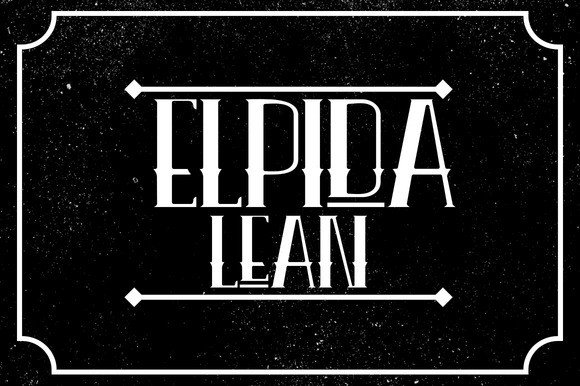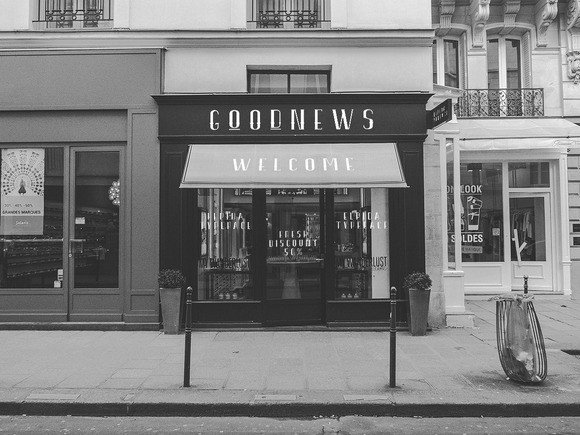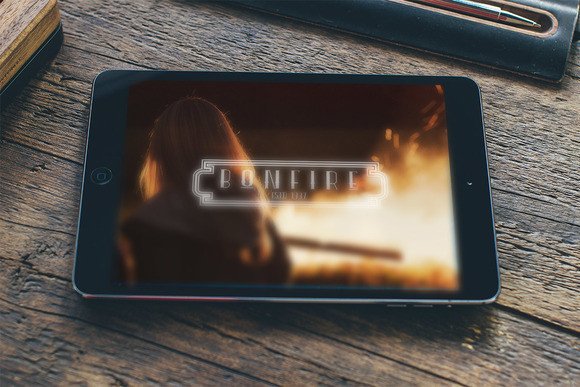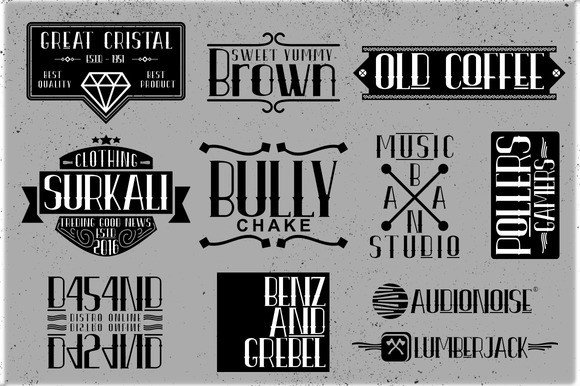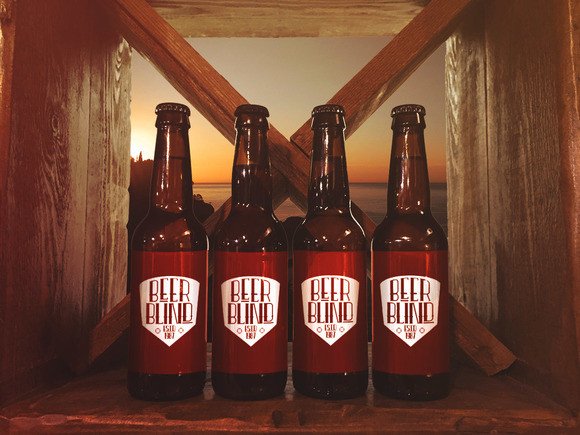
Introducing Elpida Font: A Beautifully Restrained Display Font
Are you a designer or crafter looking for a unique and stylish font to elevate your visual projects? Look no further than Elpida Font, a stunning display font that is sure to capture attention. In this article, we’ll dive into the features and benefits of Elpida Font, and explore how it can be used to enhance your designs.
What is Elpida Font?
Elpida Font is a beautifully restrained display font that is perfect for headlines and logotype. This condensed display font features a unique negative space appeal that sets it apart from other fonts. With its sleek and modern design, Elpida Font is ideal for designers and crafters who want to add a touch of sophistication to their work.
Key Features of Elpida Font
- Condensed design: Elpida Font is a condensed display font, making it perfect for headlines and logotype where space is limited.
- Negative space appeal: The font’s unique negative space design adds a touch of elegance and sophistication to any project.
- Beautifully restrained: Elpida Font is designed to be beautifully restrained, making it perfect for designers who want to add a touch of subtlety to their work.
- High versatility: Elpida Font can be used for a wide range of projects, from branding and advertising to packaging and digital design.
Benefits of Using Elpida Font
So why choose Elpida Font for your next project? Here are just a few benefits of using this stunning display font:
- Adds visual interest: Elpida Font’s unique negative space design adds visual interest to any project, making it perfect for designers who want to capture attention.
- Enhances brand identity: With its sleek and modern design, Elpida Font can help enhance brand identity and create a lasting impression.
- Easy to read: Despite its condensed design, Elpida Font is easy to read, making it perfect for headlines and logotype.
- Highly versatile: Elpida Font can be used for a wide range of projects, from digital design to print materials.
How to Use Elpida Font in Your Designs
So how can you use Elpida Font in your designs? Here are a few ideas to get you started:
- Headlines and titles: Use Elpida Font to create eye-catching headlines and titles that capture attention.
- Logotype and branding: Elpida Font is perfect for logotype and branding projects, adding a touch of sophistication and elegance to any brand.
- Packaging design: Use Elpida Font to add a touch of style and sophistication to packaging design.
- Digital design: Elpida Font can be used for a wide range of digital design projects, from website headers to social media graphics.
| Font Name | Elpida Font |
| Author | Ijem RockArt |
In conclusion, Elpida Font is a beautifully restrained display font that is perfect for designers and crafters who want to add a touch of sophistication to their work. With its unique negative space appeal and highly versatile design, Elpida Font is sure to capture attention and enhance brand identity. Whether you’re working on a branding project, packaging design, or digital design, Elpida Font is a great choice.